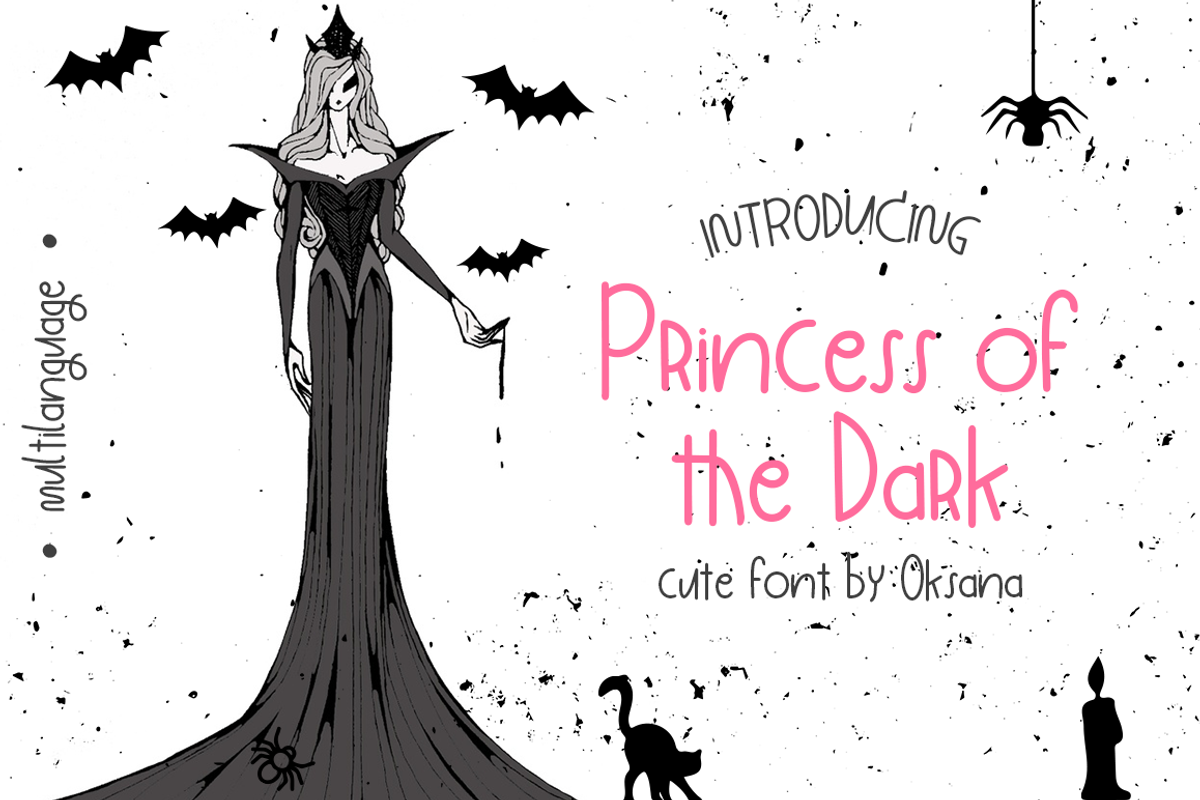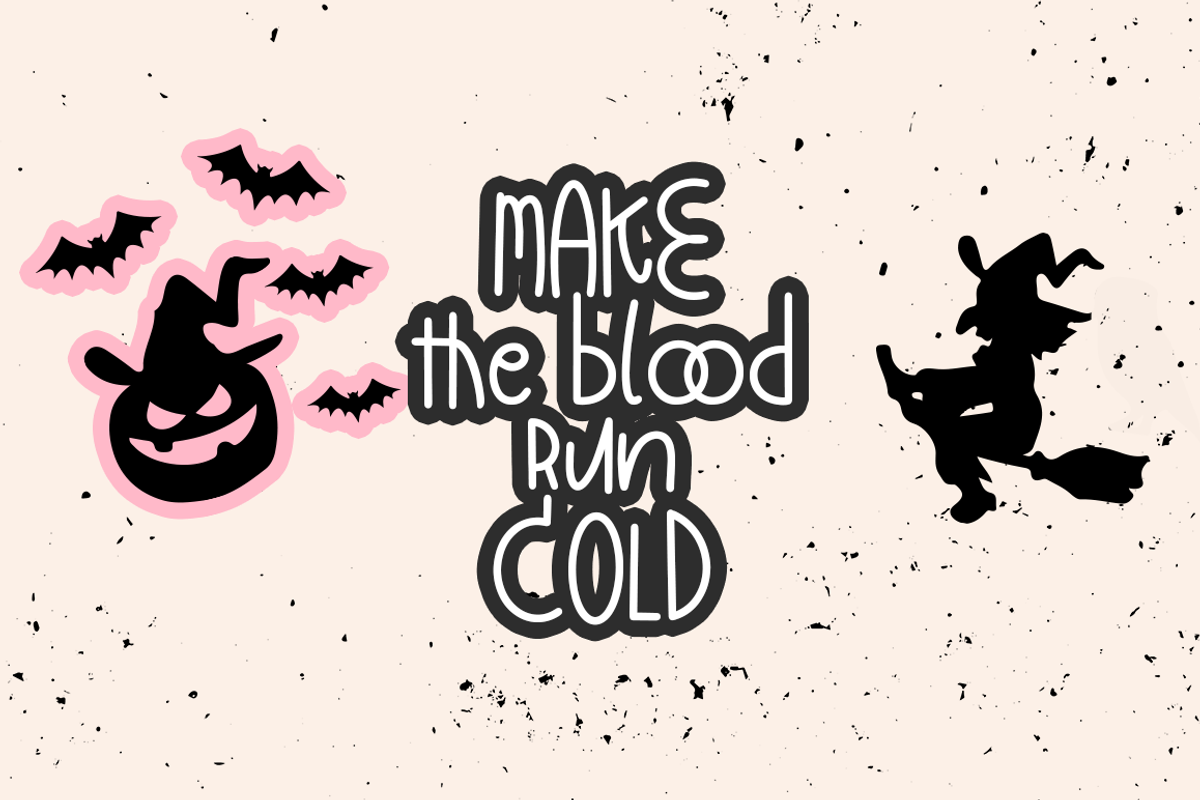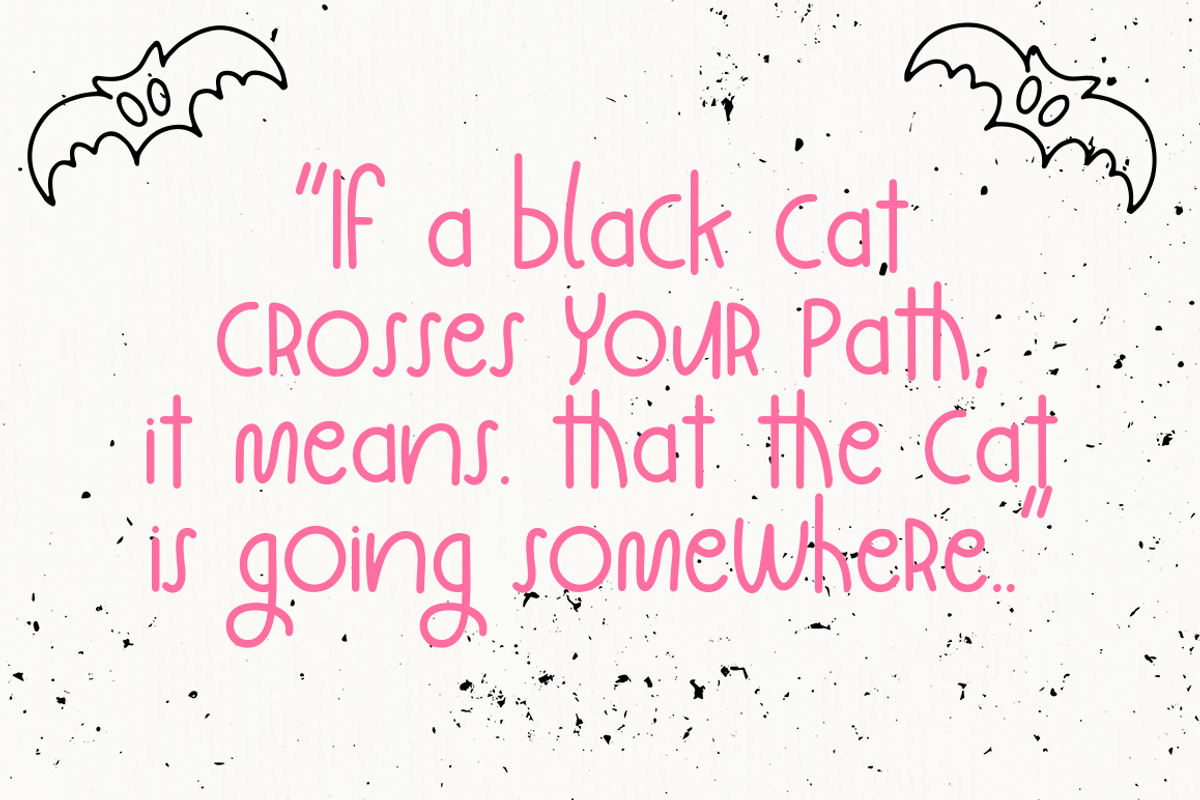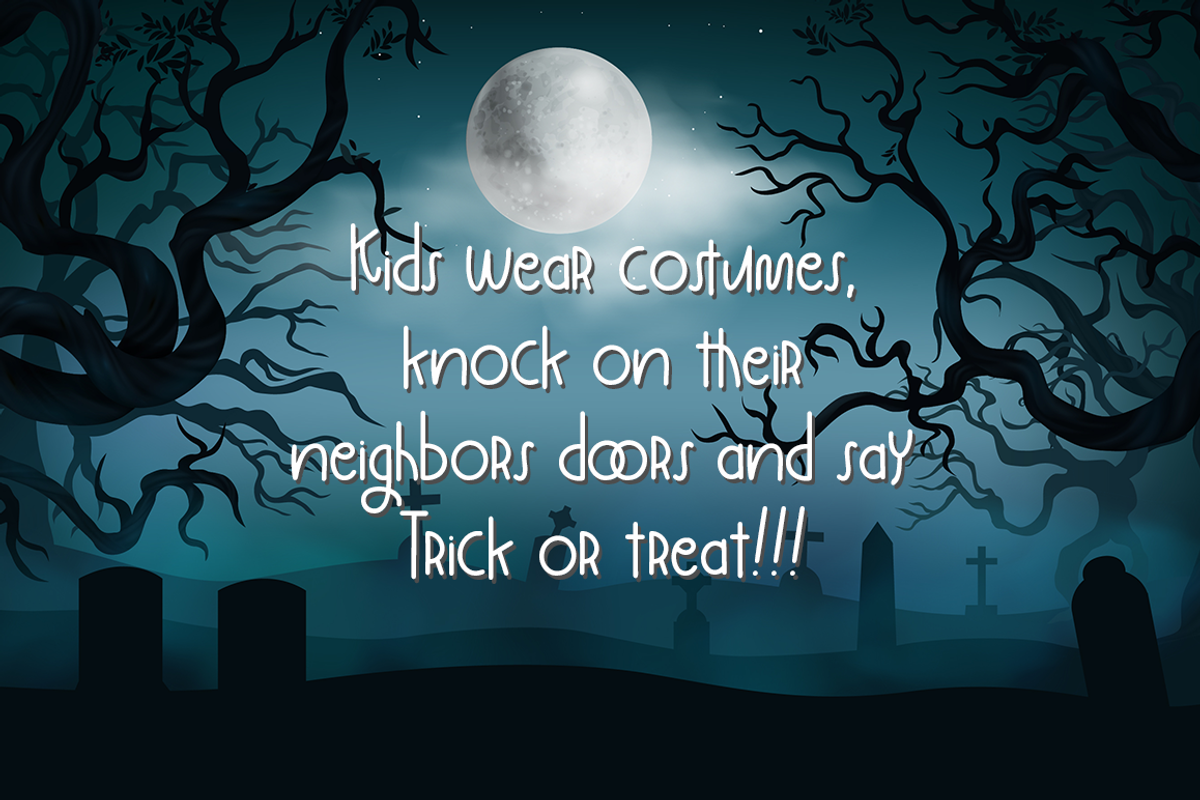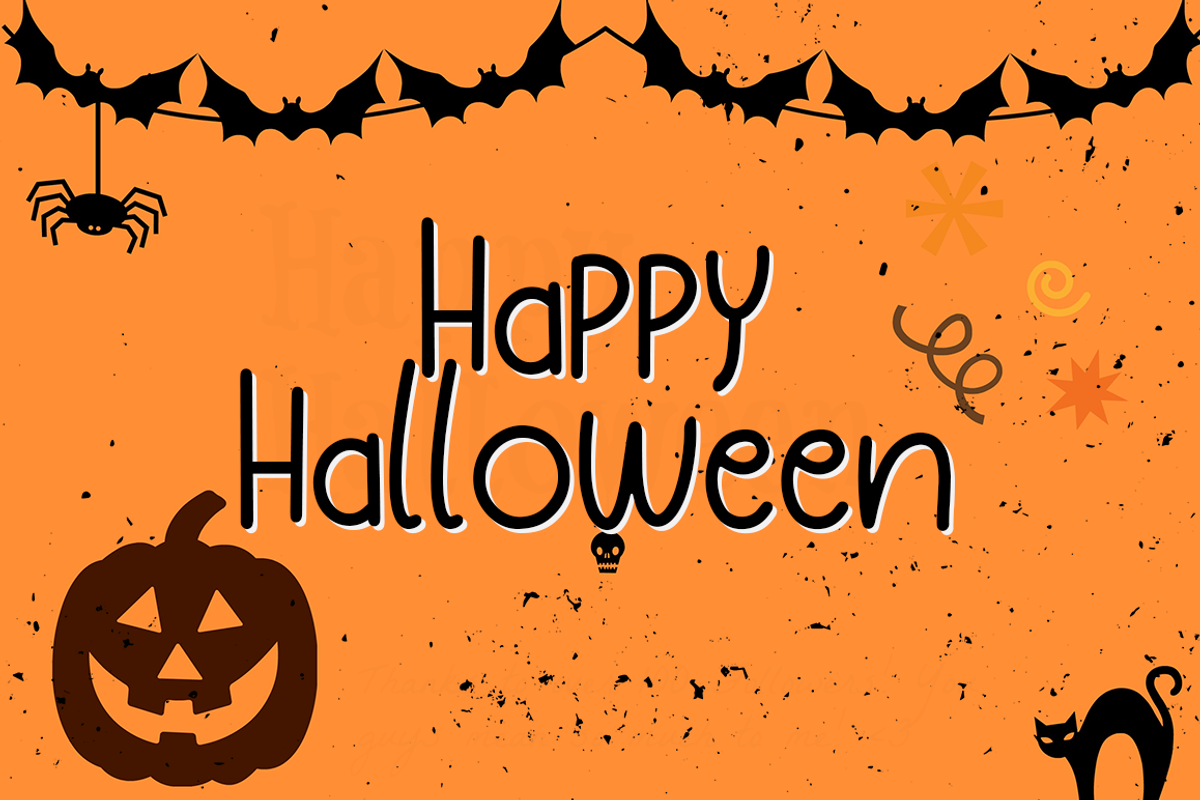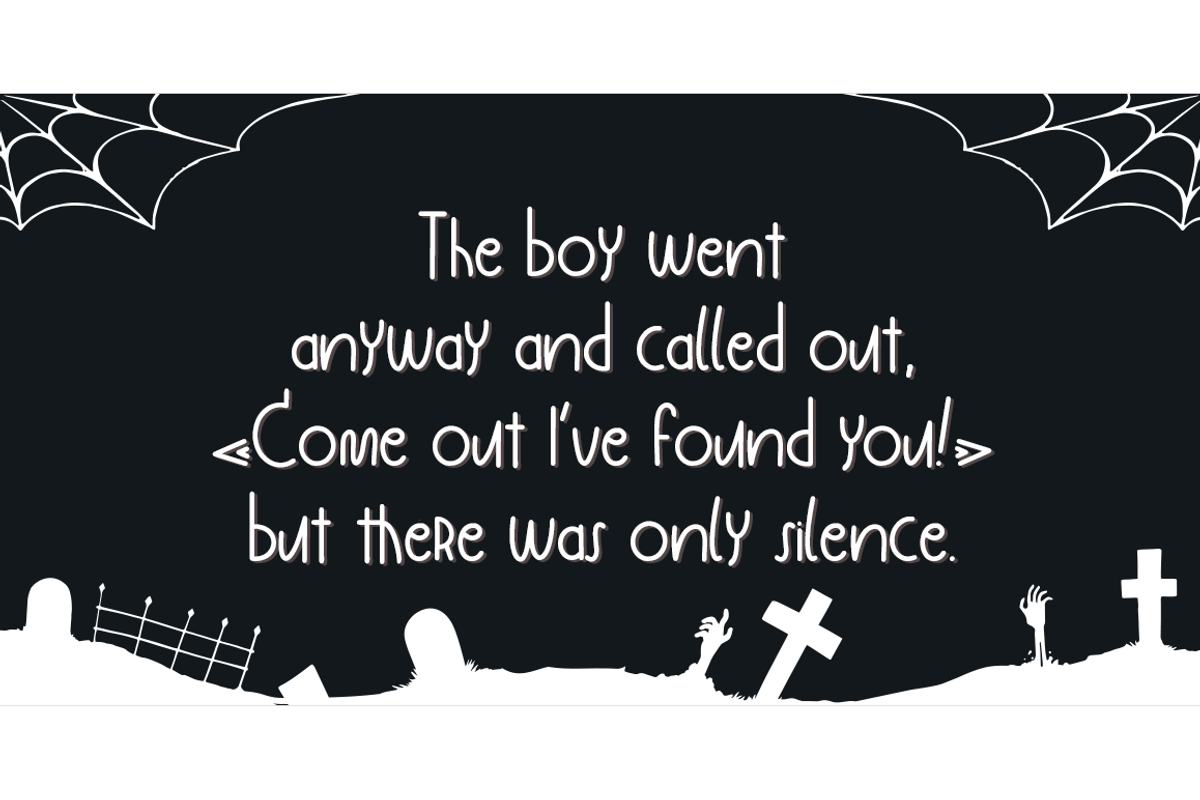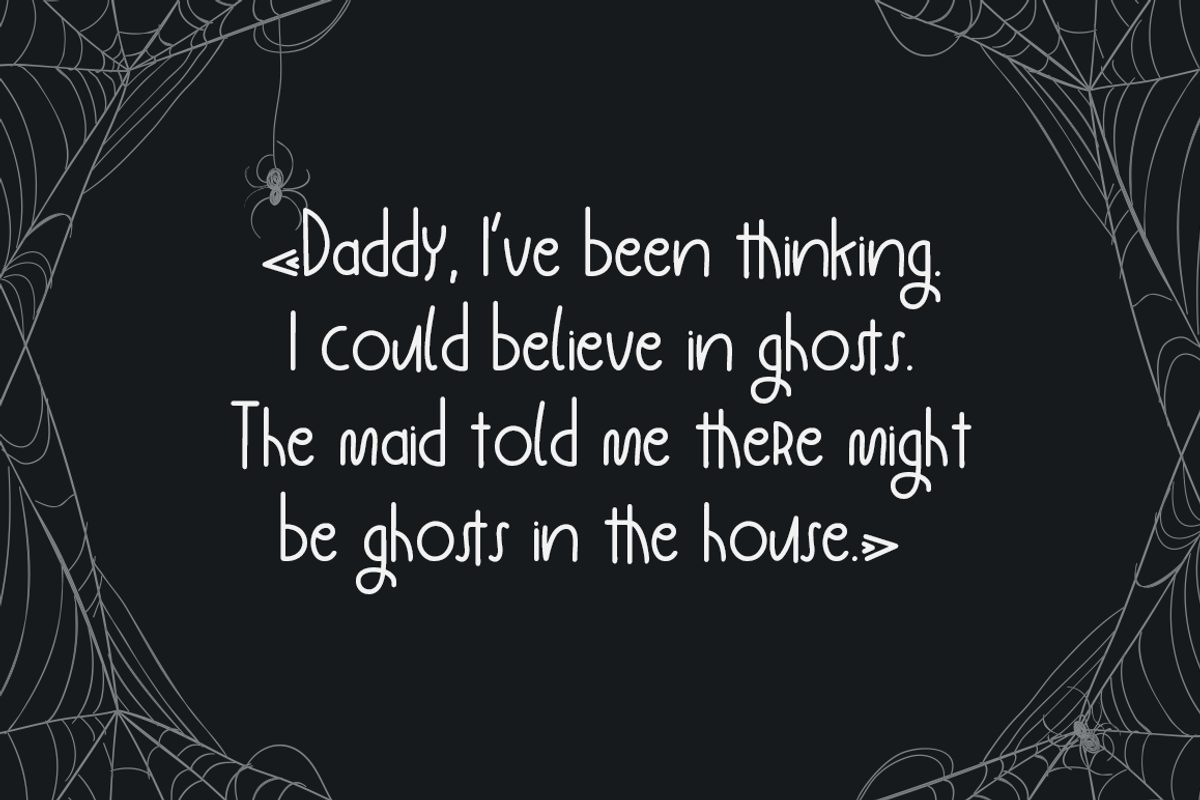
Princess of the Dark
Princess of the Dark - a new fresh handmade calligraphy font.
Very suitable for greeting cards, branding materials, business cards, quotes, posters, and more!This font are perfect for wedding postcard. Or you can create perfect and unique design of your logo, blog, stationery, marketing, magazines and more :)
MULTILANGUAGE